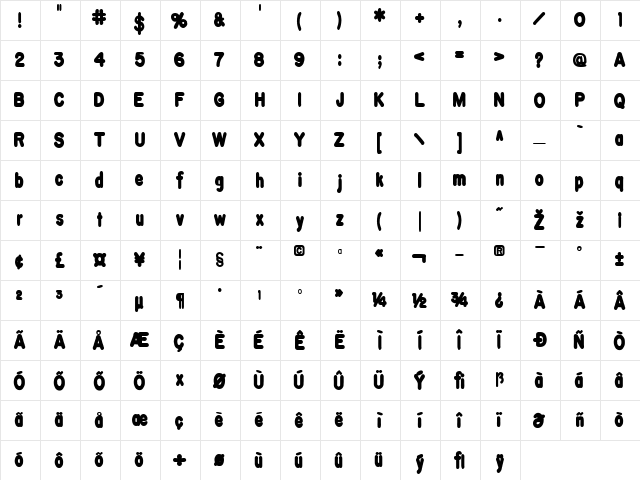
Burnt Toast Plain
| Foundry | CONIGLIO USA |
| Designer | Joseph V. Coniglio (CONIGLIO USA, 914.980.8788) |
Design Context for Burnt Toast Typeface
Burnt Toast is a composed and adaptable typeface that performs quietly and consistently across a wide range of design contexts.